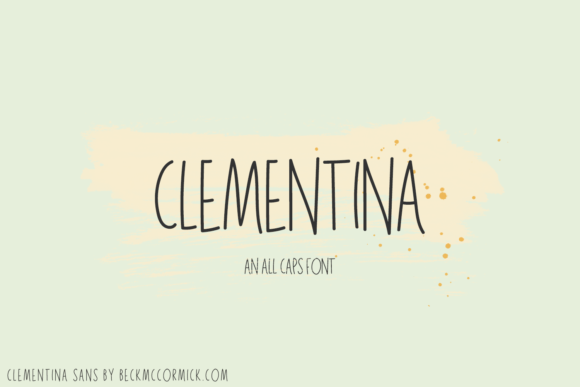
Welcome to the world of Clementina Font, the perfect choice for all your fun and creative design needs. This handwritten sans serif font is created by BeckMcCormick, and it's all-caps with a tall and skinny structure that gives off a playful and bright personality.
Clementina Font is one of the best fonts for fun flyers, and it's perfect for a variety of projects. Whether you're looking to create logos and branding, crafty projects using your Cricut or Silhouette machine, or clean print designs like magazines and flyers, Clementina is the perfect fit for you.
If you're looking to add a handwritten touch to your website design, Clementina is the perfect choice for website accents and headers. It's ideal for travel blogs, fashion blogs, and other creative niches. Moreover, Clementina is also perfect for creating quote graphics for social media, making it a great choice for bloggers and influencers.
One of the most unique things about Clementina Font is its versatility. With its tall and skinny structure, it's perfect for a wide range of projects, making it a great investment for anyone looking to expand their design toolbox.
Additionally, Clementina is perfect for creating SVGs or your own vinyl labels, reminiscent of the popular Rae Dunn line of kitchen decor. With its playful and bright personality, it's a great way to add a touch of fun and creativity to your home decor projects.
In conclusion, if you're looking for a fun and versatile font that will make your designs stand out, look no further than Clementina Font. With its captivating personality and wide range of uses, it's the perfect investment for anyone looking to elevate their design game.